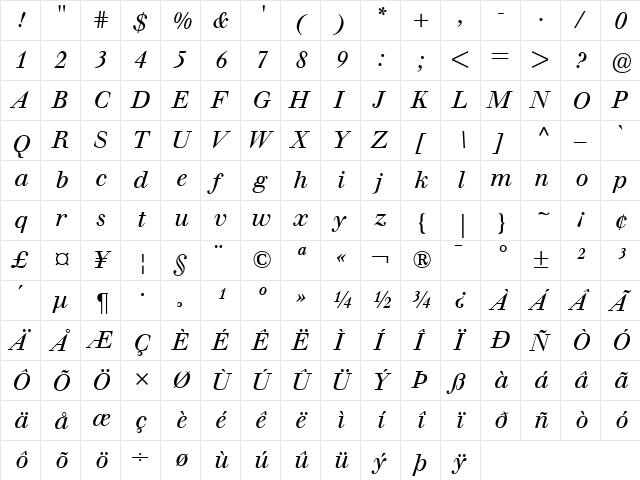
Berthold Walbaum Book Italic
Design Context for Berthold Walbaum Book Typeface
Berthold Walbaum Book is a composed and adaptable typeface that performs quietly and consistently across a wide range of design contexts. Its italic angle brings a sense of urgency and motion to the letterforms.